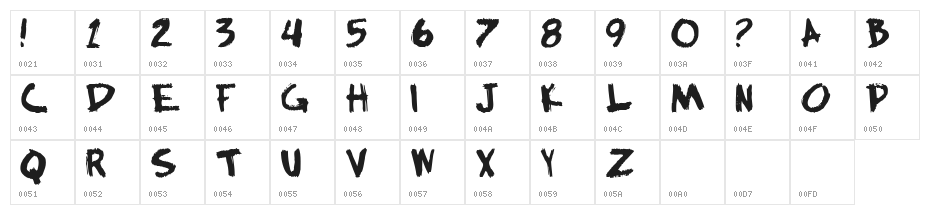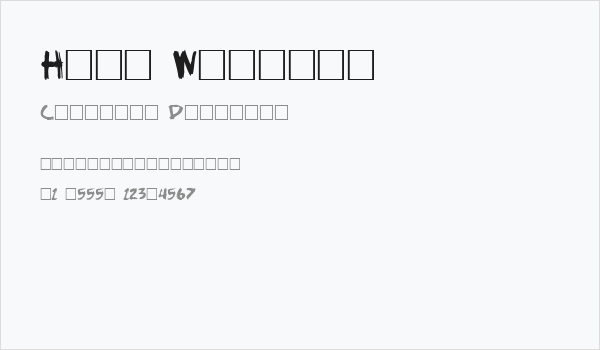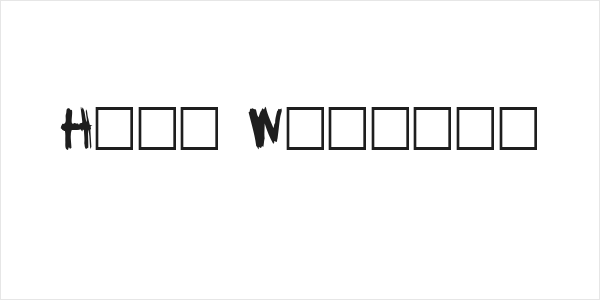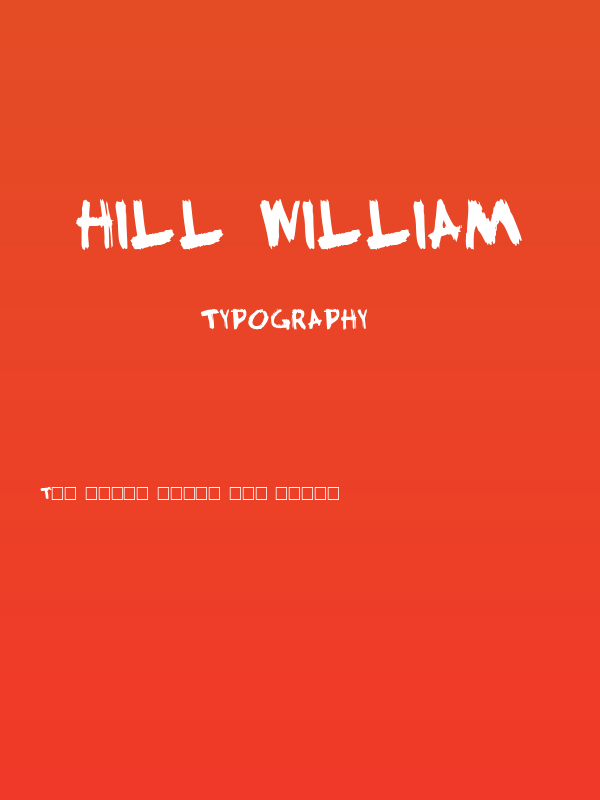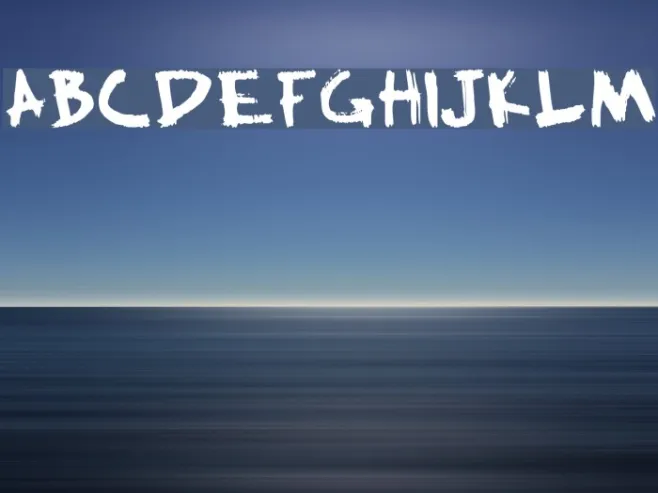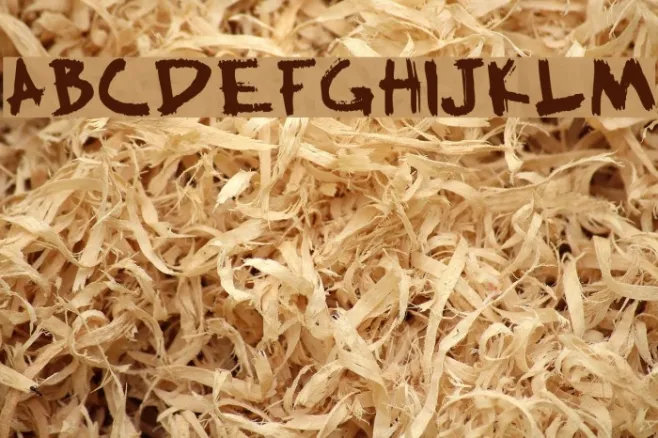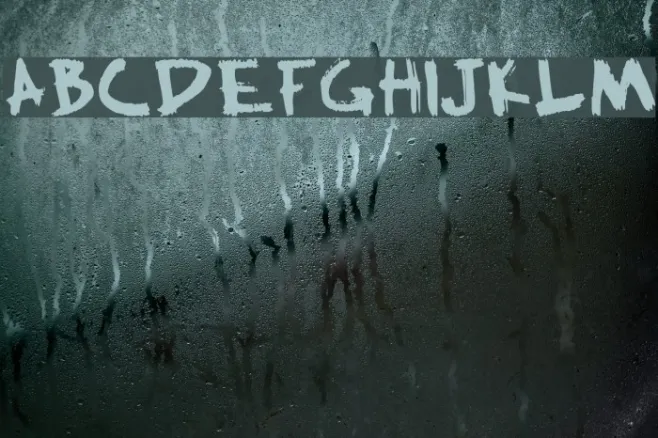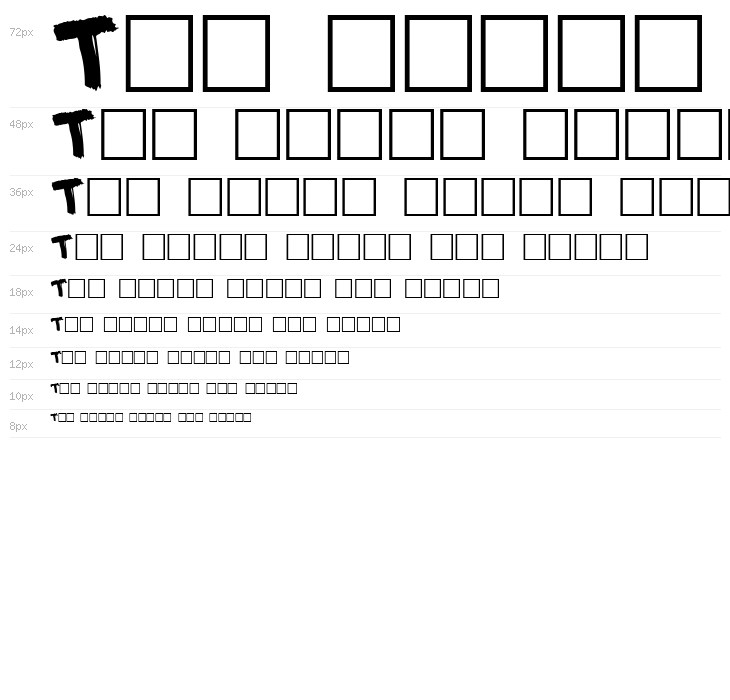
Hill William Font
Hill William Description
This font features a bold, brush-like style that exudes energy and dynamism. The uppercase letters are characterized by their thick strokes and slightly irregular edges, giving them a hand-painted appearance. The numbers follow the same aesthetic, maintaining consistency throughout the design. The font's overall look is both artistic and impactful, making it suitable for projects that require a strong visual presence. Its unique style captures attention and conveys a sense of creativity and boldness.
| Proposed Projects | Ideal for posters, branding, headlines, and any creative project that demands a strong visual impact. |